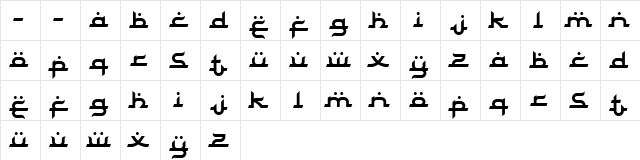
Bayram Regular
Design Context for Bayram Typeface
Bayram is a composed and adaptable typeface that performs quietly and consistently across a wide range of design contexts.